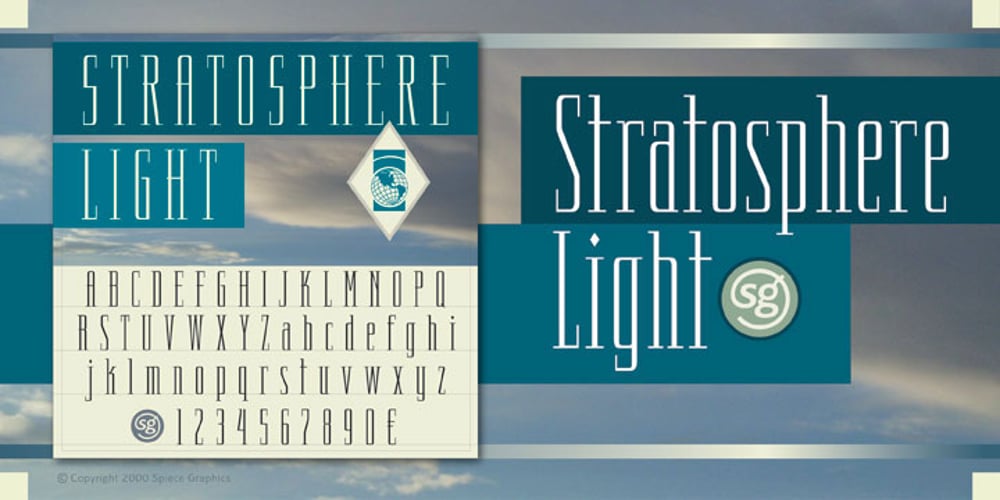
Stratosphere SG Font Family was designed by Jim Spiece and published by Spiece Graphics. Stratosphere SG contains 1 styles and family package options. Every element in this typeface shouts tall and narrow, slender and provocative. With wispy delicate serifs attached to elevator-style vertical stems, Stratosphere’s only goal seems to be getting to the top in style. And no matter how you describe it – ultra thin or ultra condensed – this typeface is best for short headlines and titles. Use only in large display sizes and use sparingly. Stratosphere Light is also available in the OpenType Std format. Some new characters have been added to this OpenType version. Advanced features currently work in Adobe Creative Suite InDesign, Creative Suite Illustrator, and Quark XPress 7. Check for OpenType advanced feature support in other applications as it gradually becomes available with upgrades.